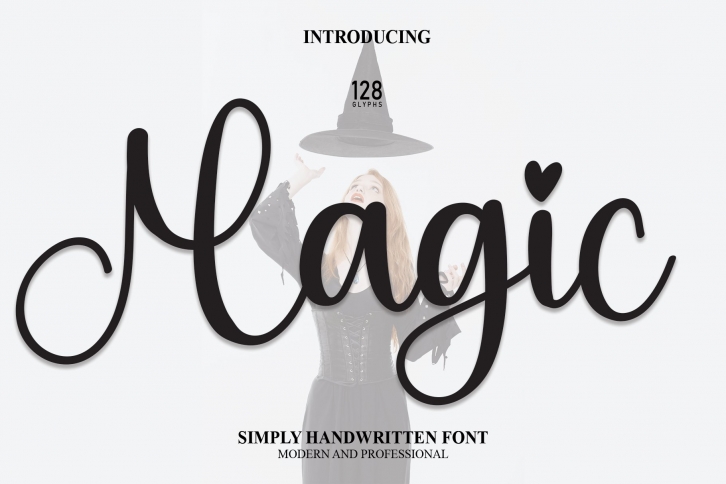
Magic is a trendy and unique font with an authentic style. It was designed by Scratchones and it's a great choice for creative people who need such a font. It was released on June 15, 2022 and the file size is 10.19 MB. Magic will add an organic vibe to any design idea!